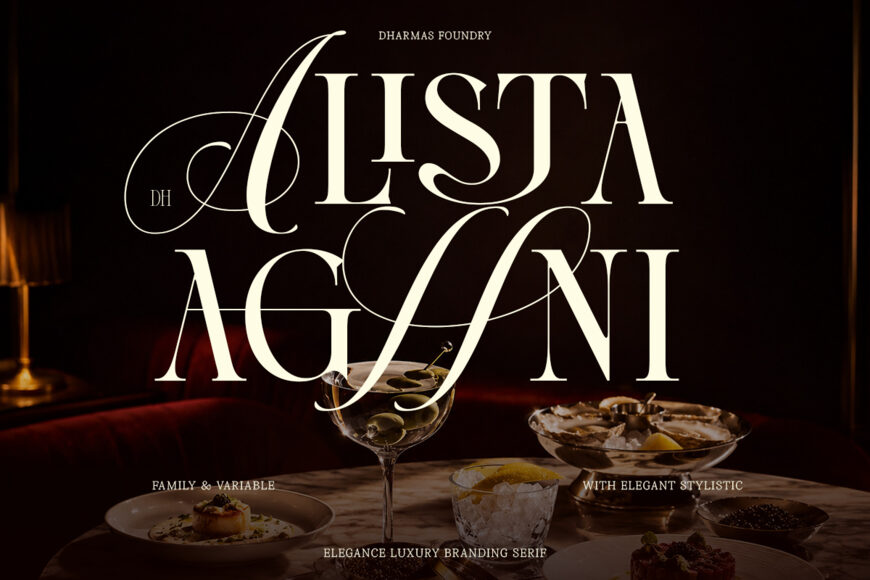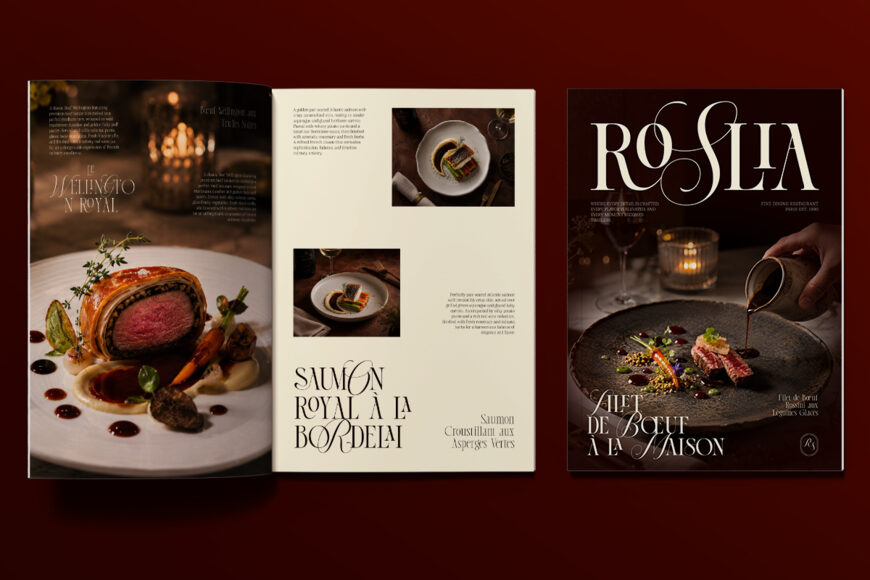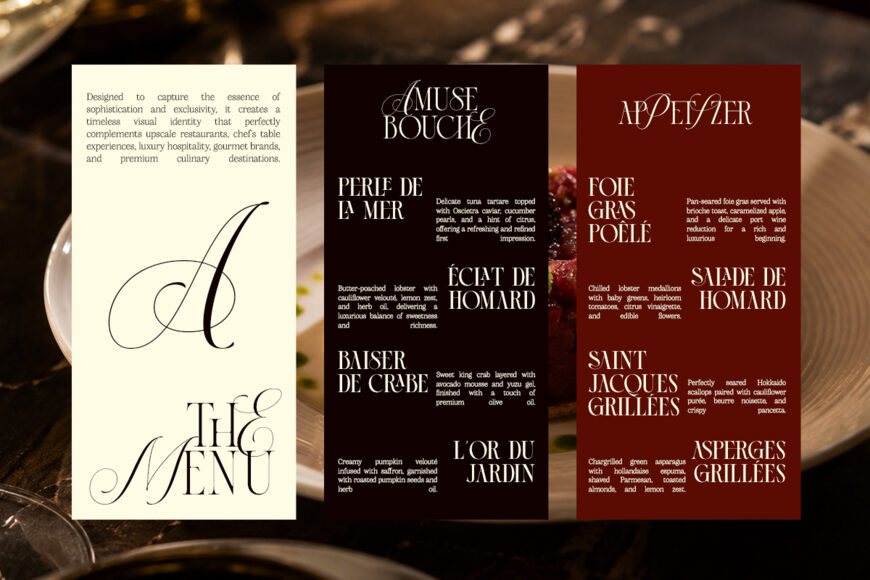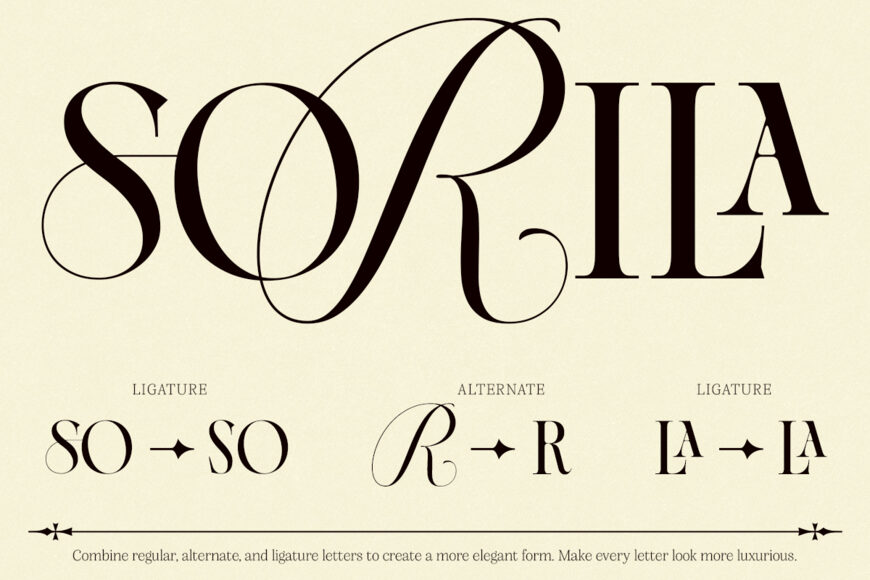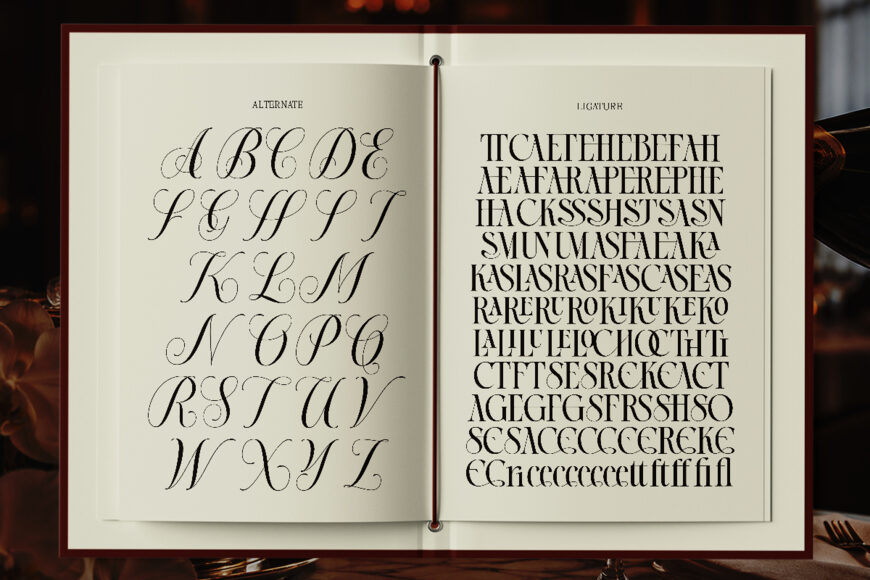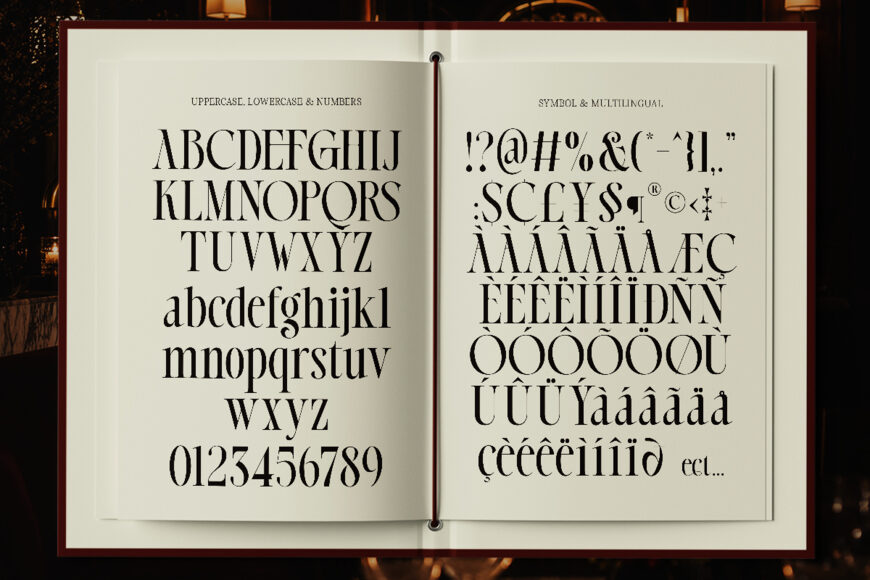
Dh Alista Aghni Font
Alista Aghni is an elegant serif font family created for luxury branding, fashion labels, beauty packaging, wedding stationery, editorial publishing, and hospitality brands.
Designed for logos, magazine headlines, product packaging, invitations, and book covers, Alista Aghni creates a refined and premium visual identity. Inspired by timeless serif typography, the overall look feels sophisticated, graceful, and luxurious.